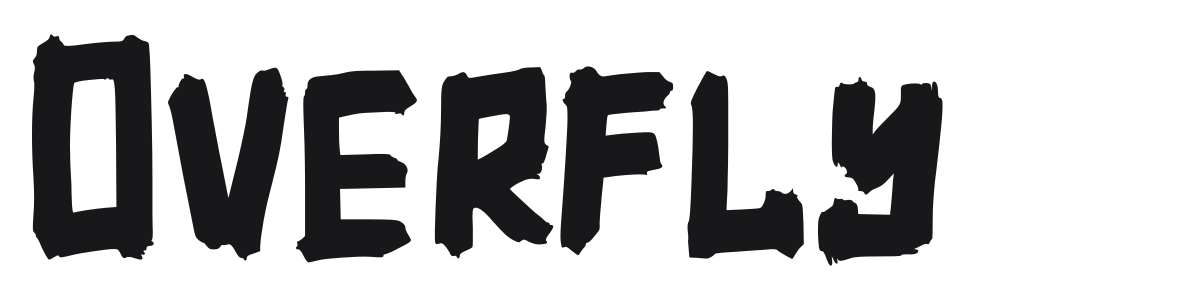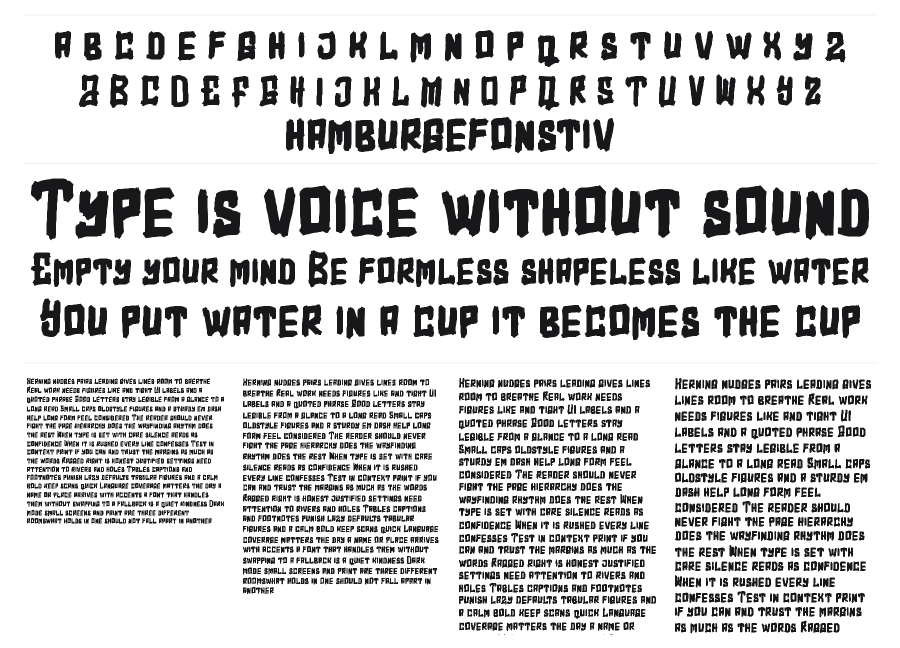
Overfly
Overfly is a heavy condensed display font with severely distressed edges that give it a torn, battle-worn texture. The bold rectangular strokes read with force at large sizes while the rough outlines add hand-crafted grit. Strong territory for horror, metal, punk, and underground branding.